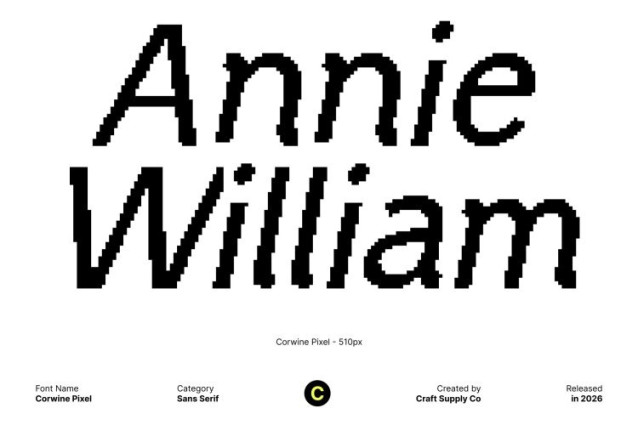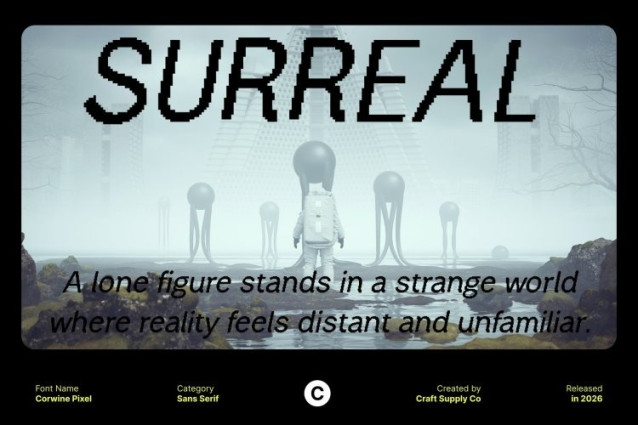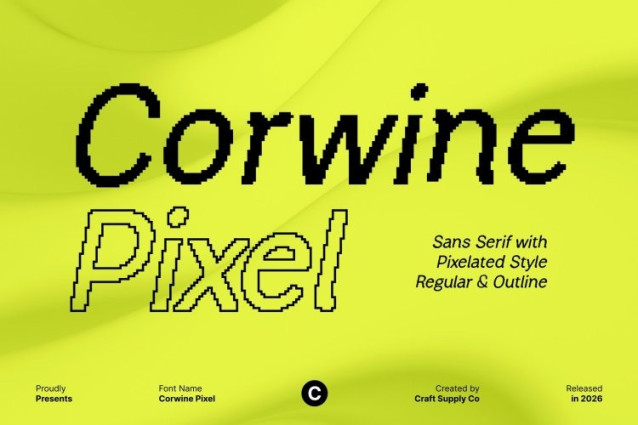
Corwine Pixel Font
Corwine Pixel Font This is a modern sans-serif font designed to balance clarity, simplicity, and visual confidence. Its clean structure and minimalistic forms create a polished appearance that feels professional yet approachable. Built with a pixel-inspired foundation, this font subtly nods to digital aesthetics while maintaining a refined and modern look suitable for today’s design standards.
Adaptable Across Multiple Design Contexts
One of this font’s greatest strengths is its versatility. It performs exceptionally well across a wide range of applications, including websites, posters, billboards, presentations, and digital interfaces. Whether used for corporate communication or creative promotion, this font adapts effortlessly, delivering a consistent and contemporary visual tone in every layout.
High Readability for Clear Communication
This font prioritizes legibility, ensuring that text remains clear and easy to read in both large displays and smaller text settings. Its balanced proportions and clean sans-serif construction help communicate messages effectively across print and digital media, making it a reliable choice for professional typography.
Professional Meets Creative Expression
Perfect for designers seeking a blend of professionalism and creativity, this font enhances corporate identities, branding systems, and advertising campaigns with modern sophistication. Its subtle pixel influence adds character without sacrificing clarity, making this font a smart and stylish solution for projects that demand versatility, readability, and a modern edge.